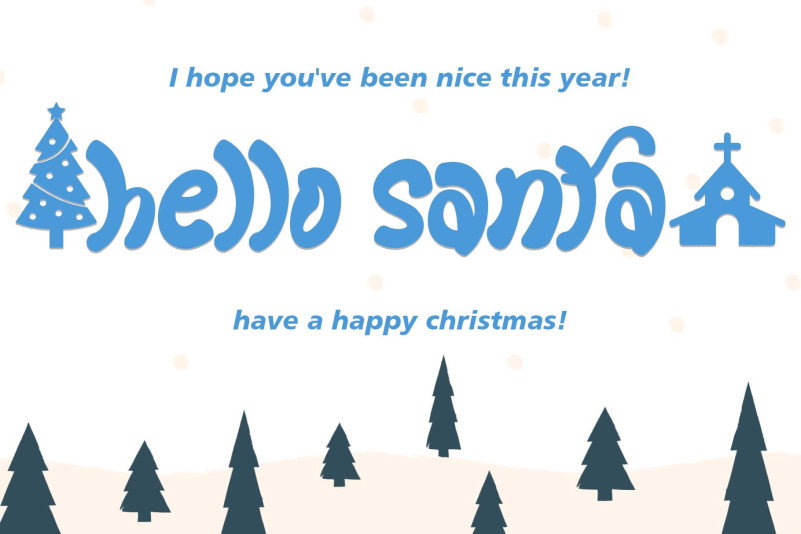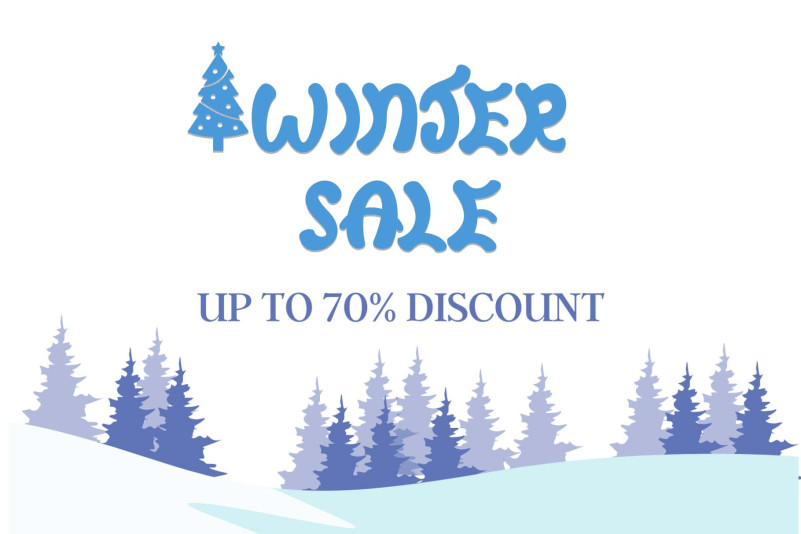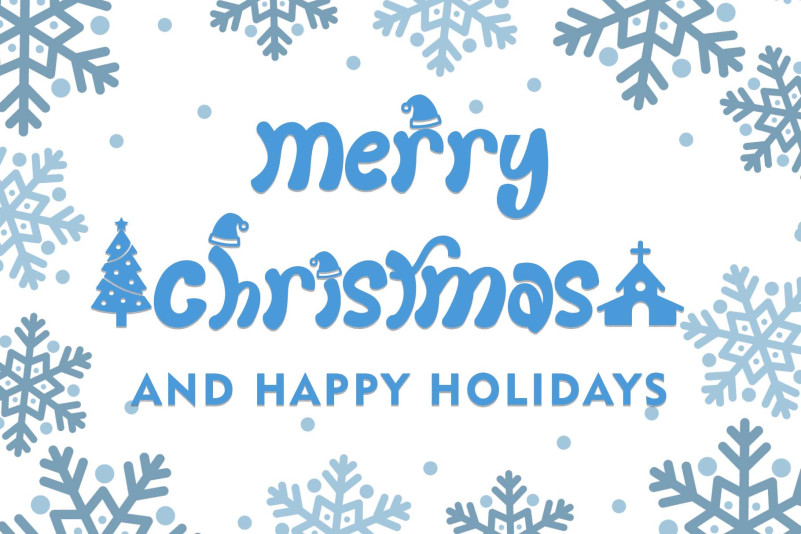
Winter Claus Font
Winter Claus Display Font is a unique display font decorated with Christmas hats, Christmas trees and churches. This font is perfect for Christmas, winter, and more. Equipped with uppercase, lowercase, uppercase alternates, swash, titling, lowercase alternates, numeral, punctuation and multilingual support.